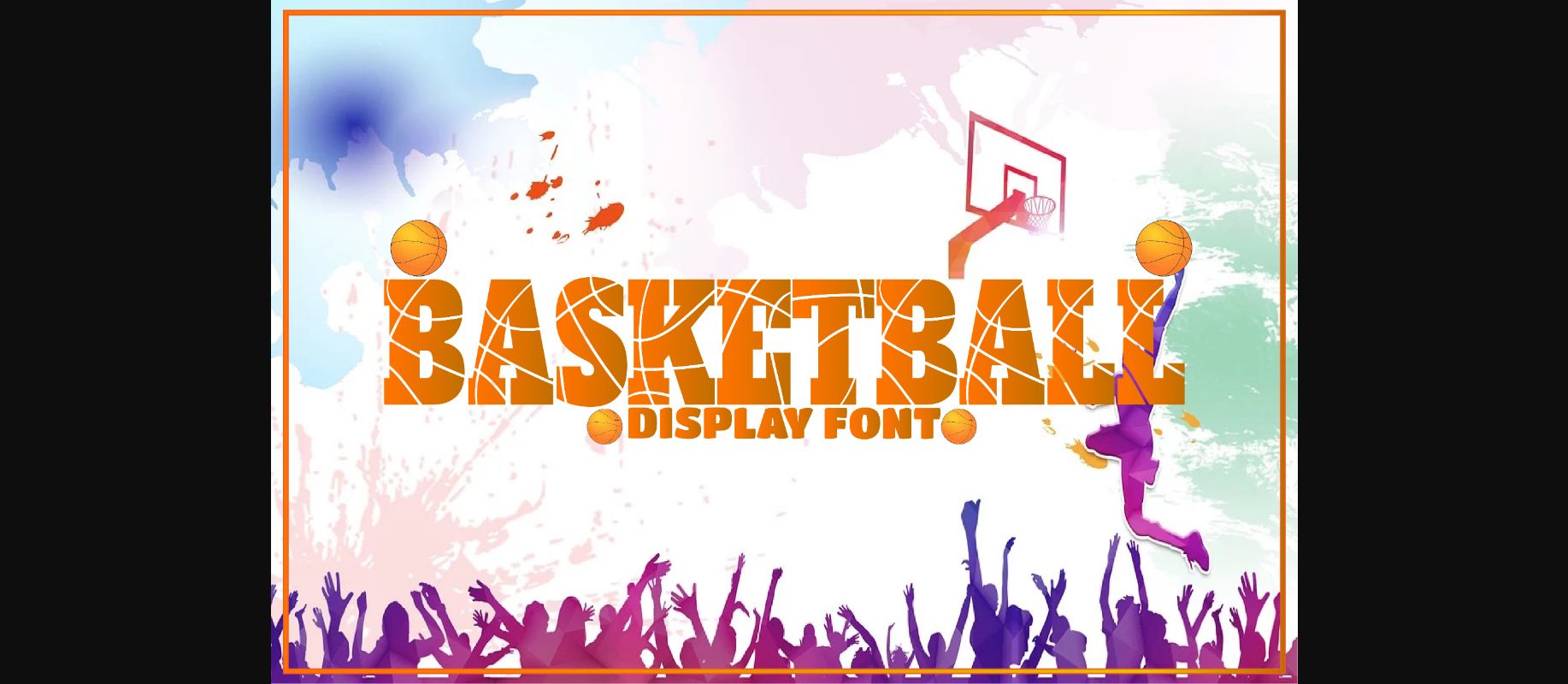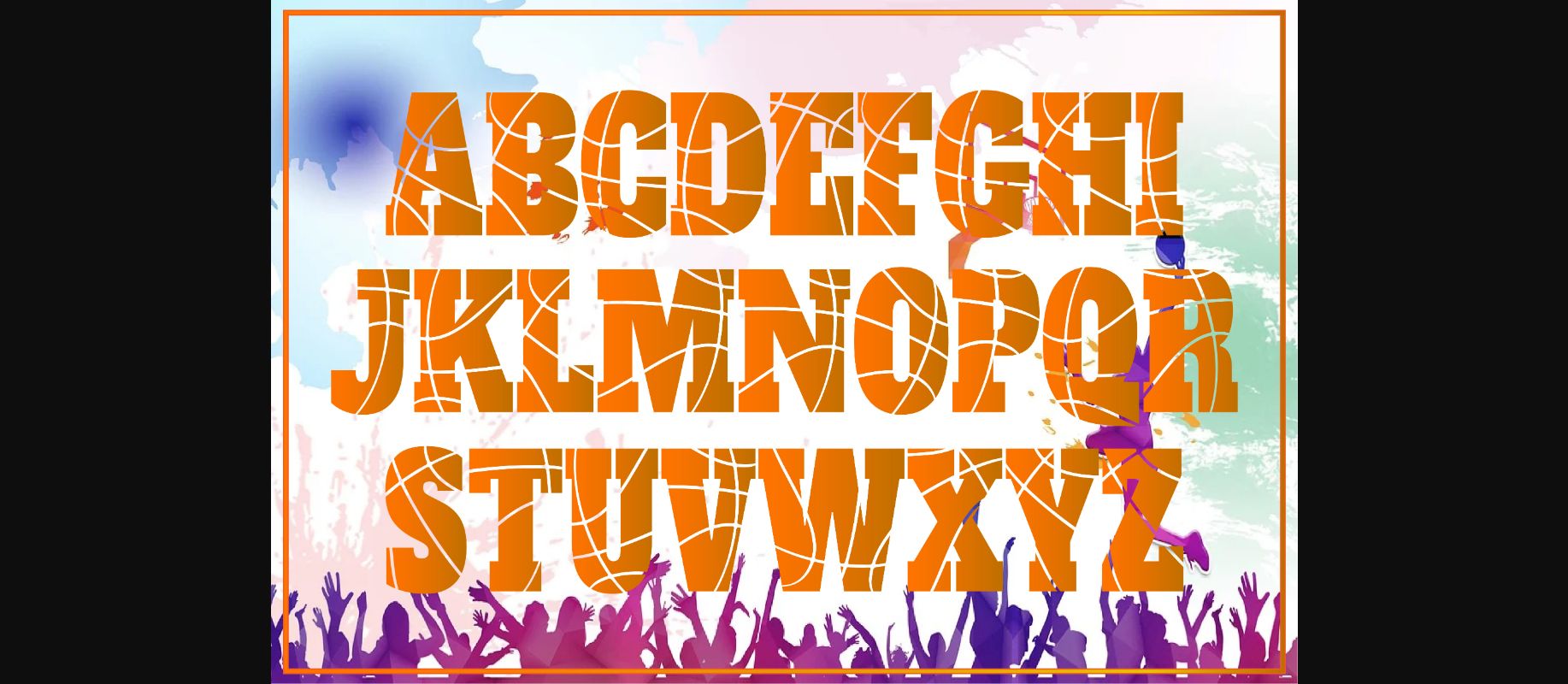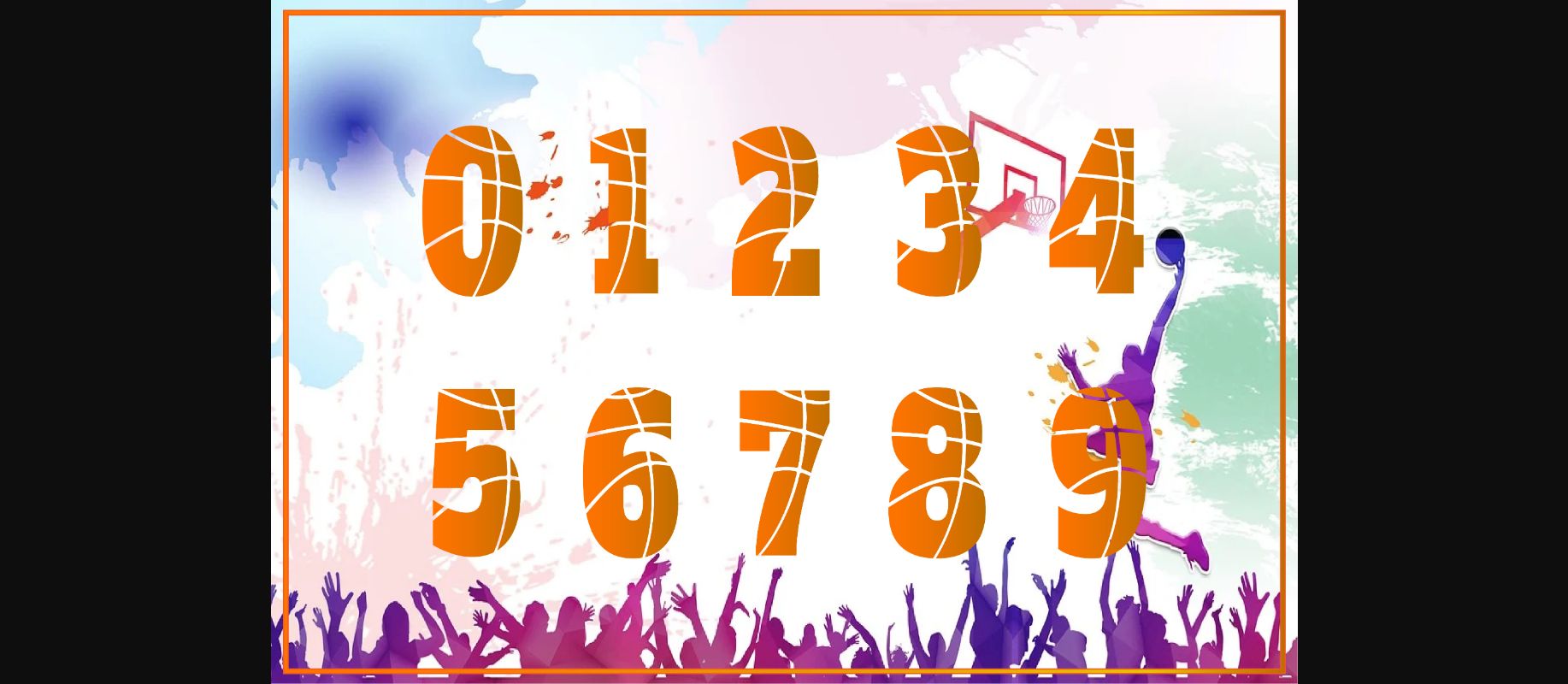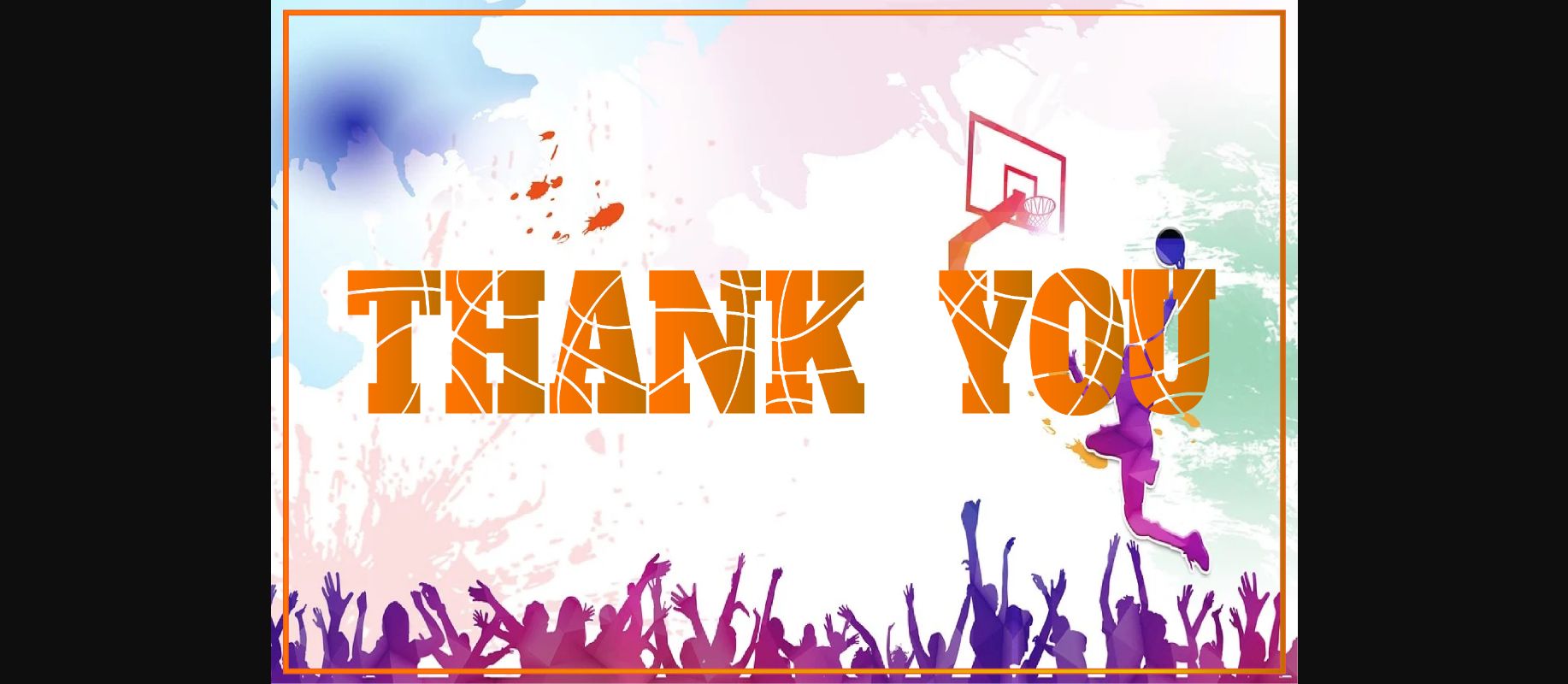
Basketball is a sporty, basketbll themed decorative font. It is perfectly suitable for any design or crafty idea! Add it confidently to your projects and you will love the results!